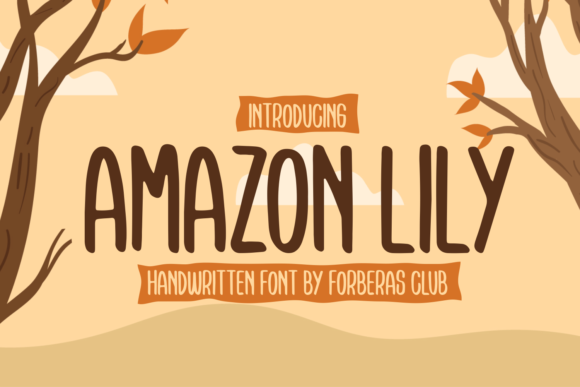
The Amazon Lily Font: A Simple yet Powerful Handwritten Font for Your Creative Projects
As a designer, I’ve been there – stuck in the middle of a project, struggling to find the perfect font to bring my vision to life. I recall working on a client’s branding project, needing a font that was both simple and elegant. That’s when I stumbled upon the Amazon Lily font. In this article, I’ll share my experience with this beautiful font, its features, and how to make the most of it in your creative projects.
A Moment of Frustration and Discovery
I was working on a handmade craft project, requiring a font that could convey a sense of warmth and friendliness. My client was looking for something that would appeal to a wide audience, and I was determined to deliver. After hours of searching, I finally found Amazon Lily, and it was love at first sight! This handwritten font has since become a staple in my font library, and I’m excited to share its beauty with you.
An Honest Review of Amazon Lily
So, what makes Amazon Lily special? Here are some of the things I love about this font:
- ✨ Simple and neat handwritten style that’s easy to read
- ✅ Highly versatile and can be used for various design projects, from crafts to branding
- 💫 Works well with both digital and print materials
- 🎨 Can be paired with a wide range of fonts to create a unique look
While Amazon Lily is an excellent font, it’s not perfect. Here are a few quirks to keep in mind:
- 🤔 Limited OpenType features compared to some other fonts
- ⚠️ May not be the best choice for very large or very small text sizes
The Story Behind Amazon Lily
Amazon Lily was designed with the intention of creating a simple, yet elegant handwritten font. The designer aimed to craft a font that would be versatile and easy to read, making it perfect for a wide range of creative projects.
Q: What is the Amazon Lily font best used for?
A: Amazon Lily is a versatile font that can be used for various design projects, including crafts, branding, social media graphics, and more.